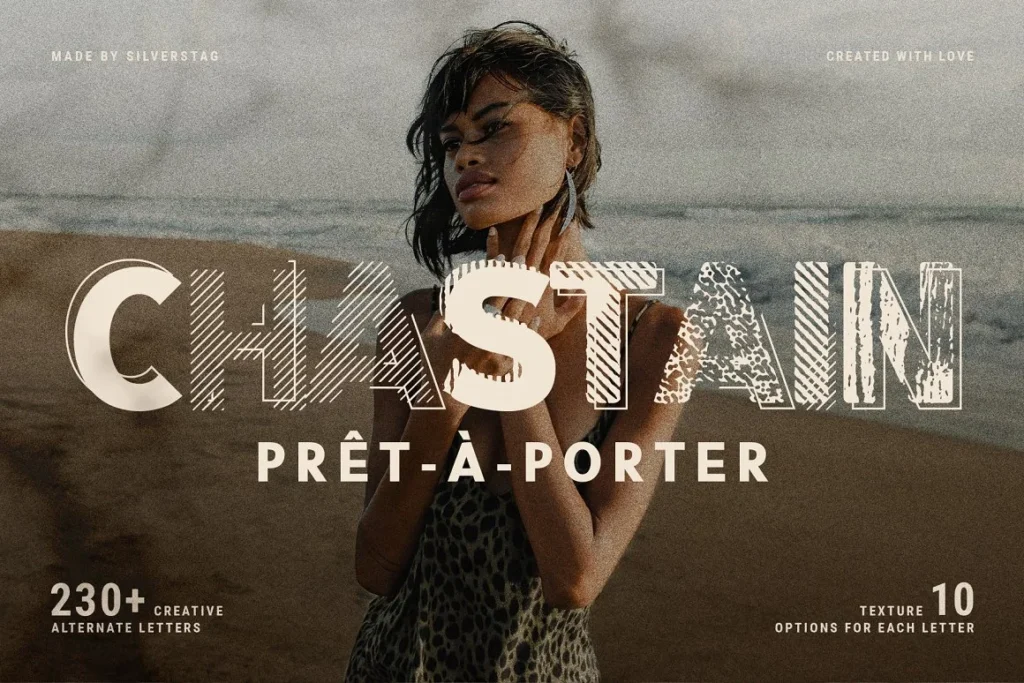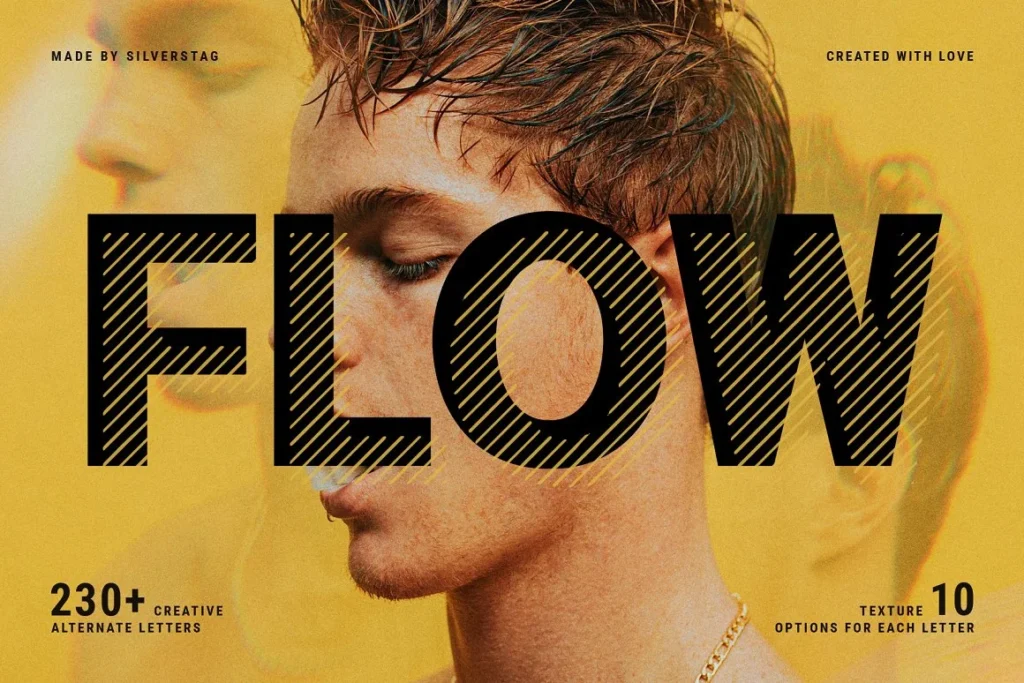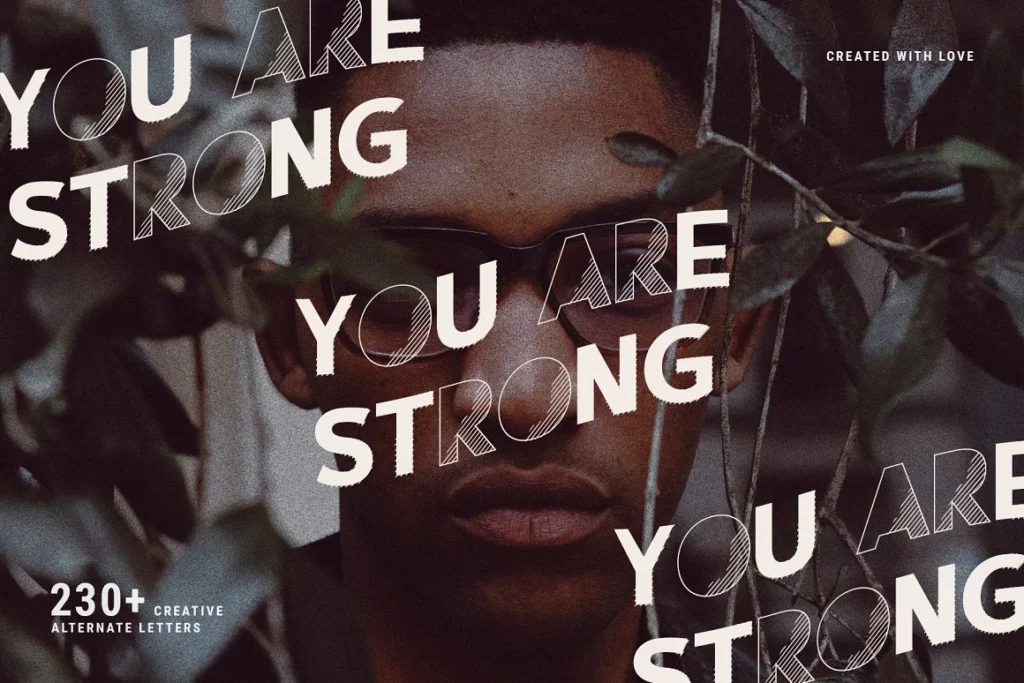
Hey everyone, are you ready for a brand new look and unique perspective in your typography? Look no more THENA is my new OpenType font that will make each of your projects 100% unique!
Thena Layered Typeface Display Font where each uppercase letter has 10 different versions. It is something I have been working on for quite some time now and I am sure you’ll enjoy it’s unique and playful look!
The true handprinted look of some of the overlays will elevate your work and help you create some new and unique designs.